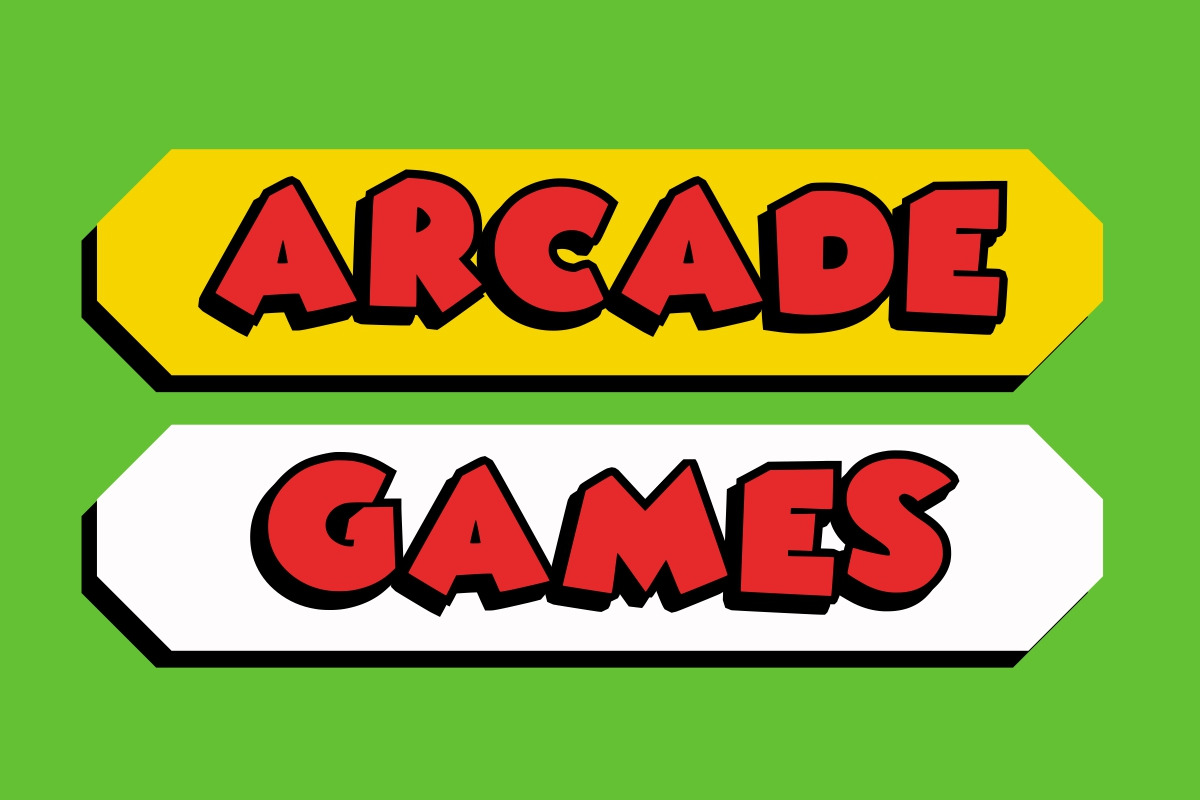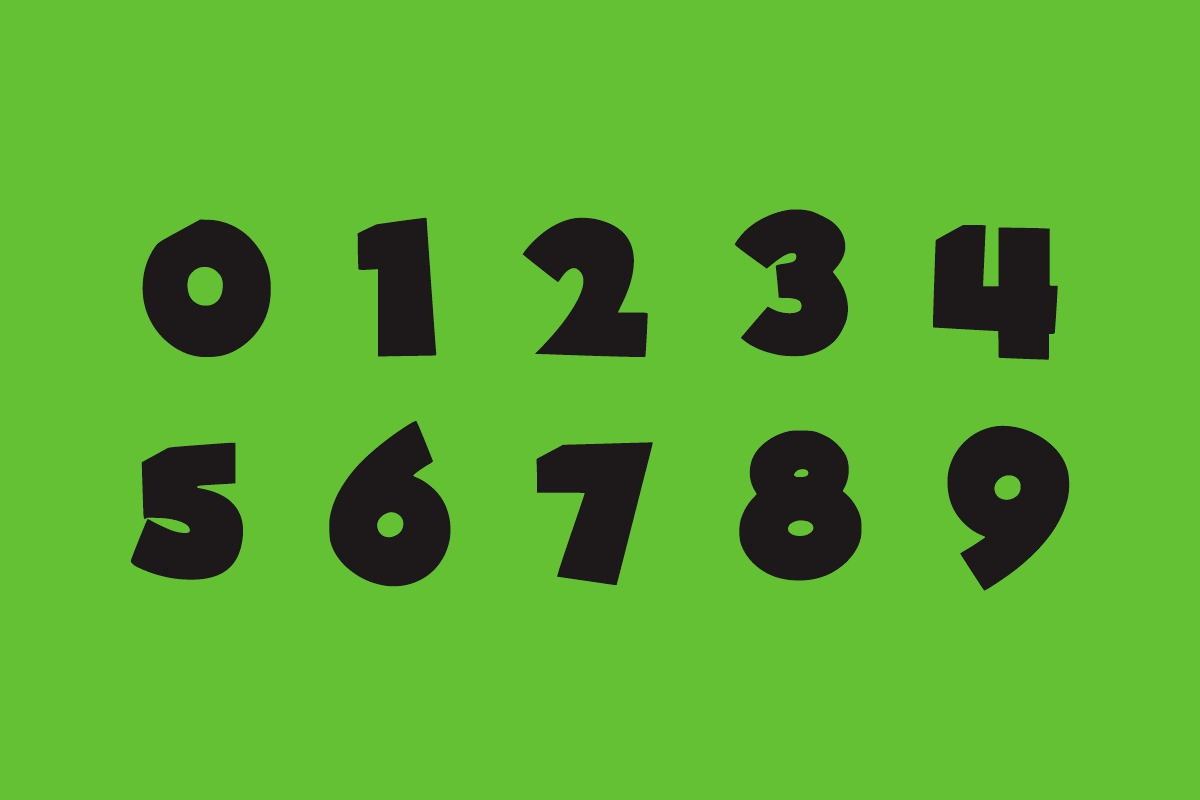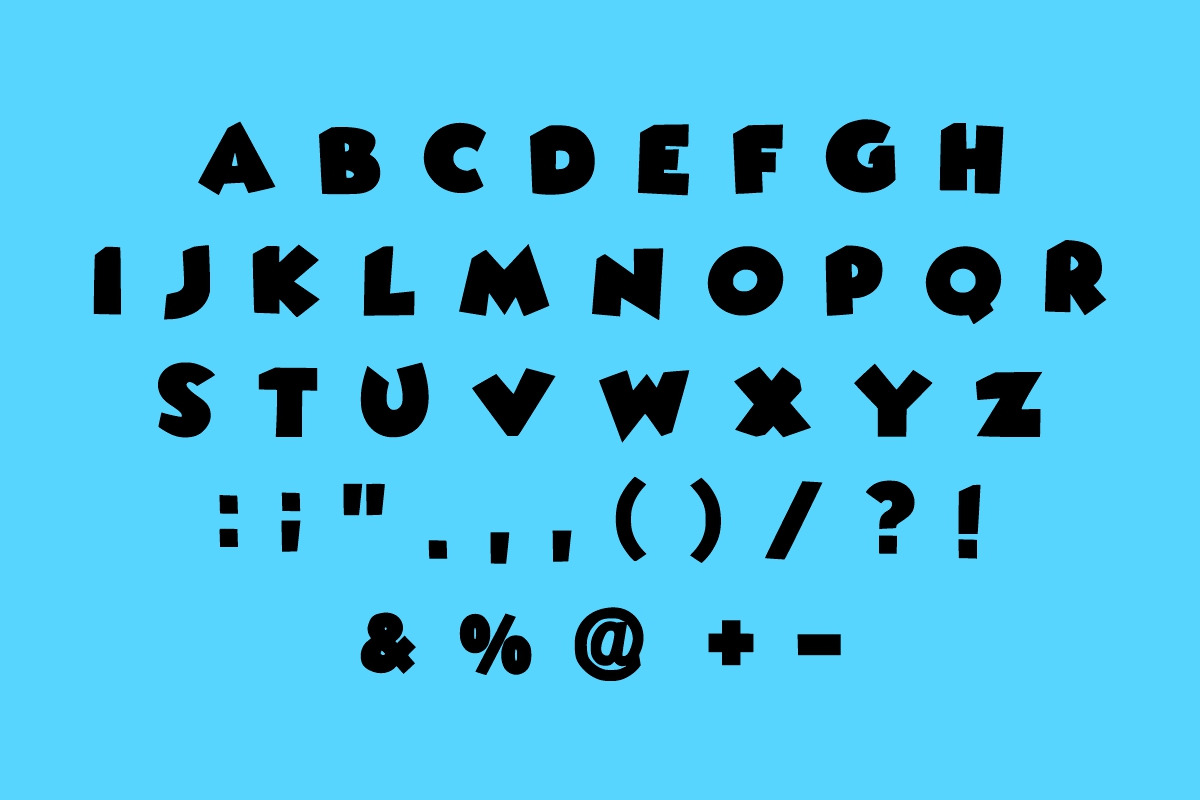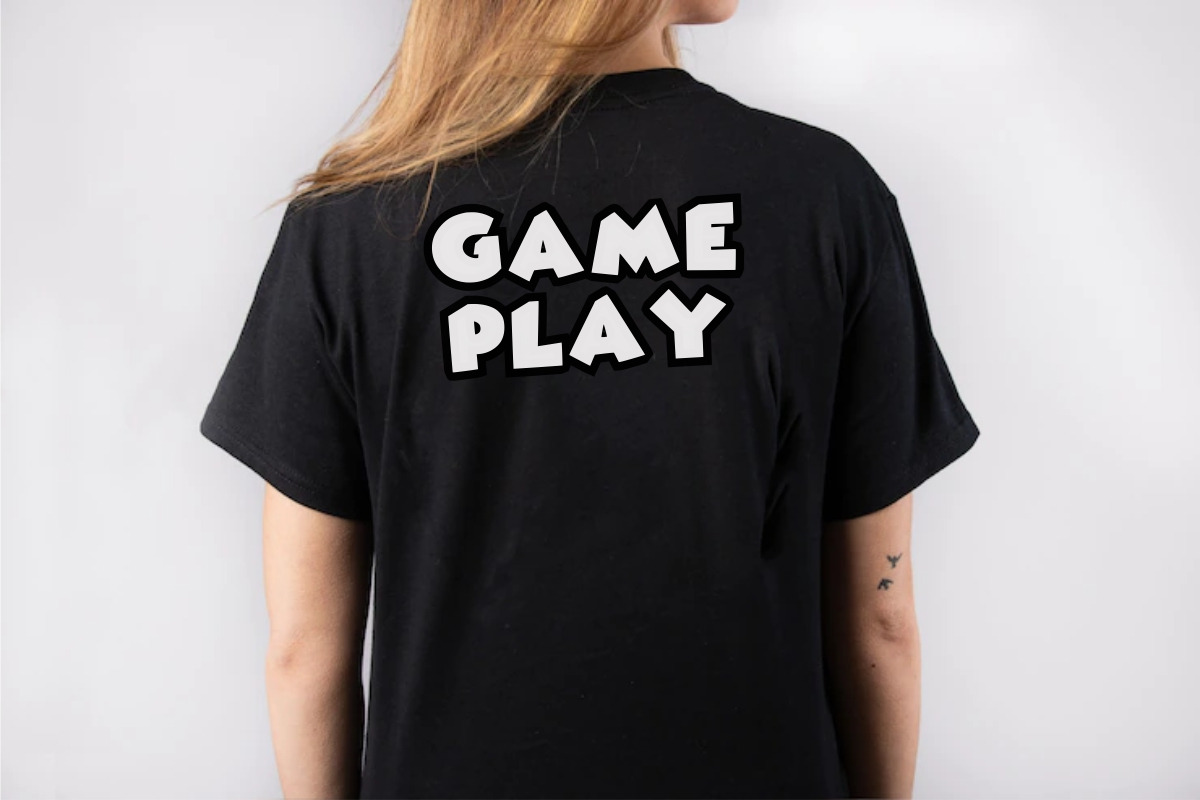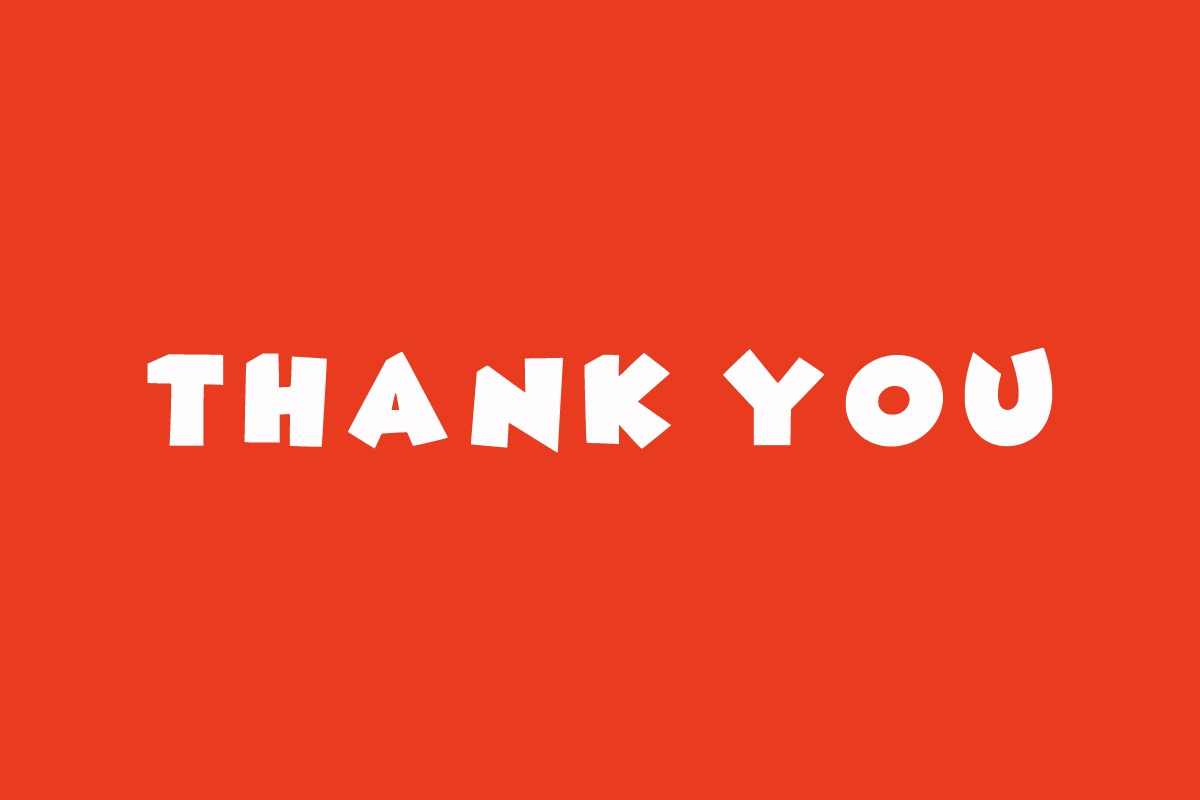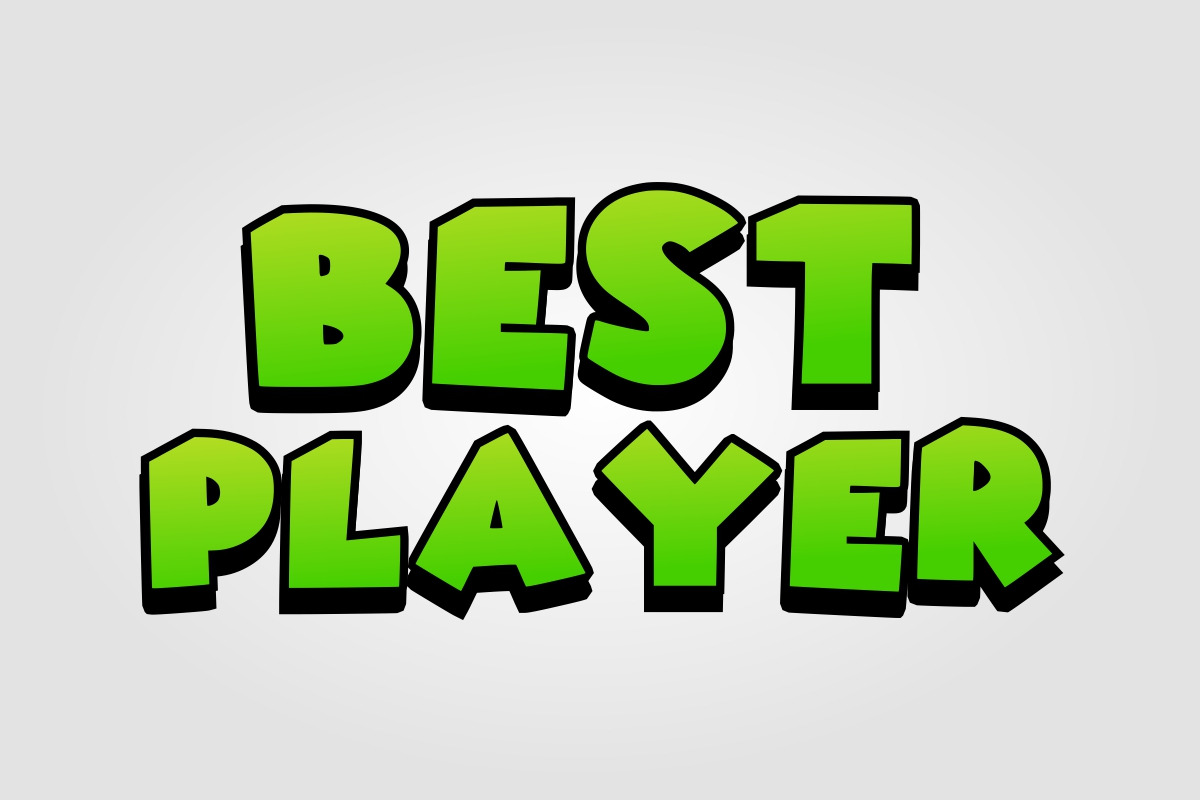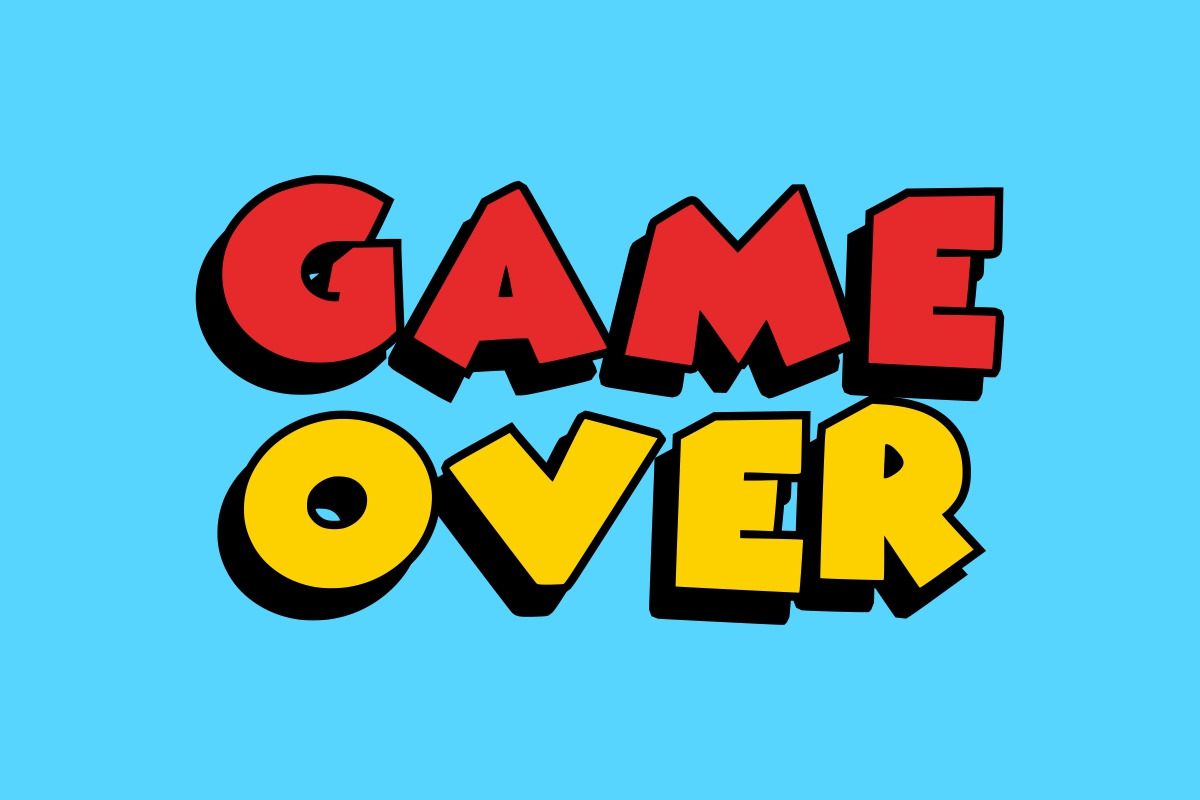
SUPER MARKO
Super Marko is a colorful, Bold, and childish, easy-to-read display font that conveys impeccable friendliness. Whether you’re using it for crafts, digital design, presentations, or greeting cards, this font has the potential to become your favorite go-to font, no matter the occasion!